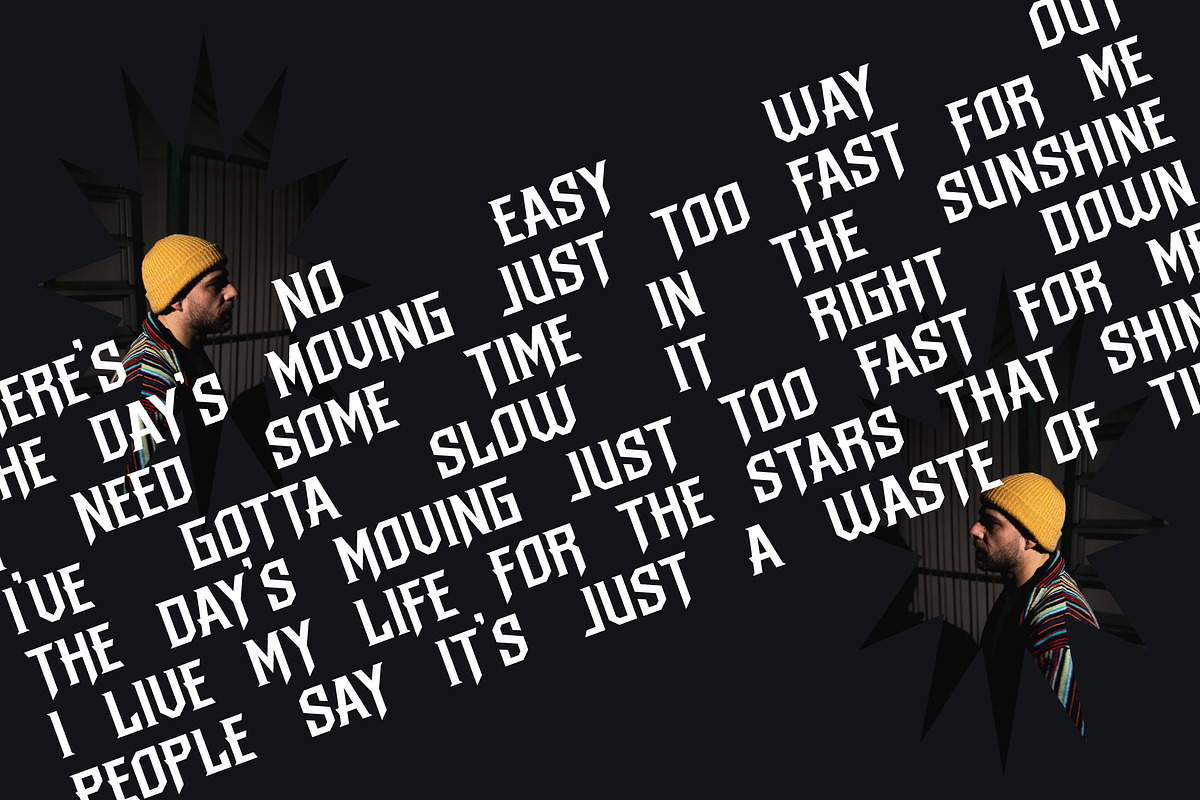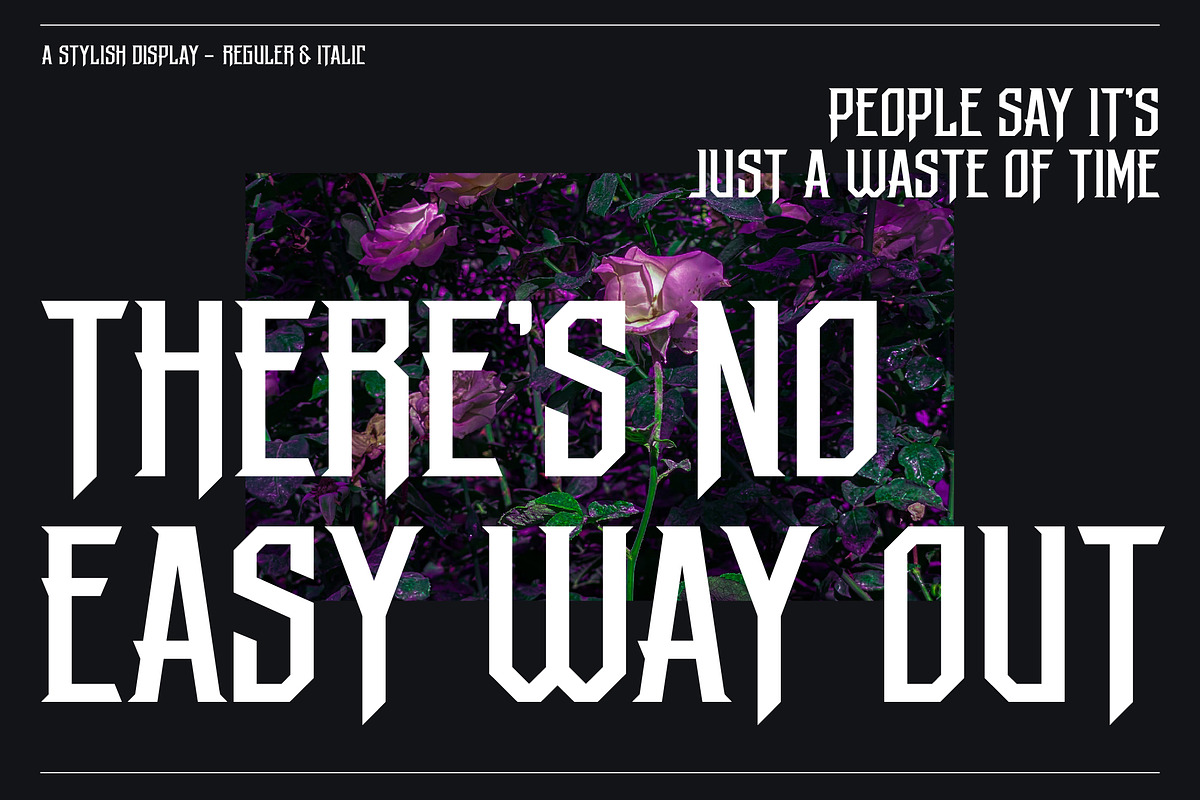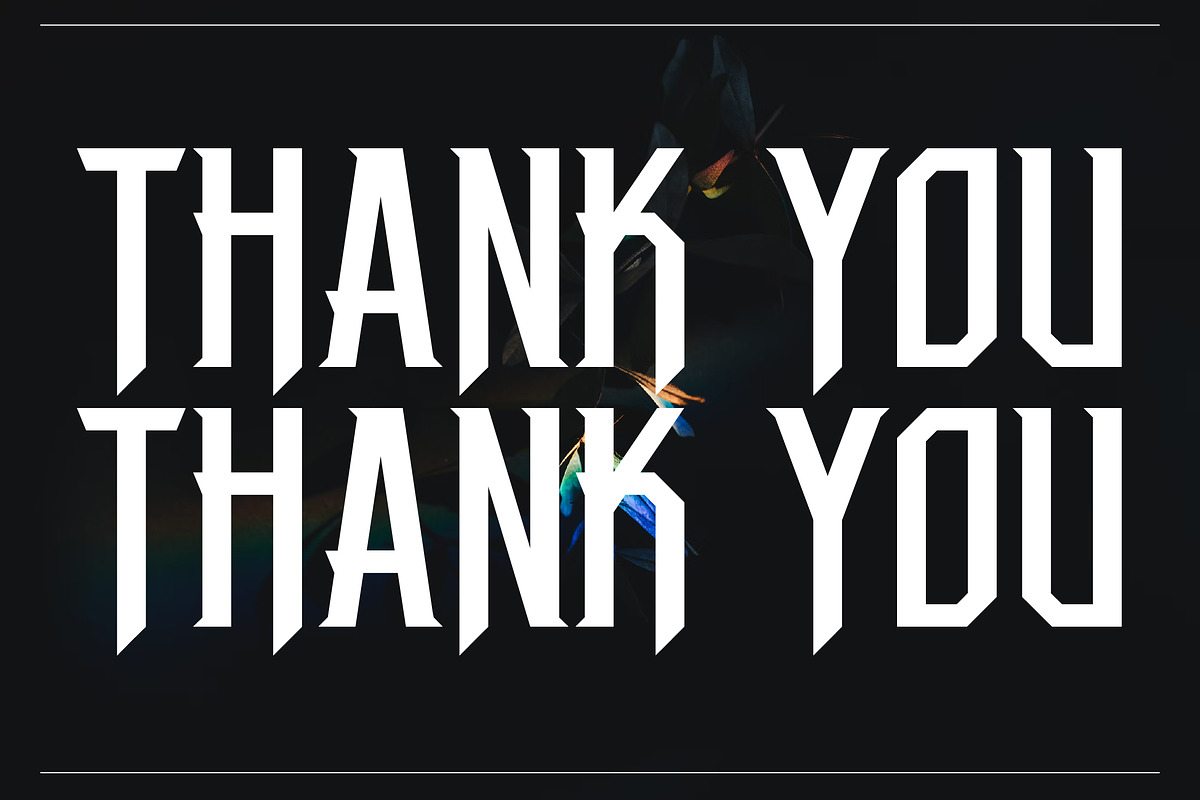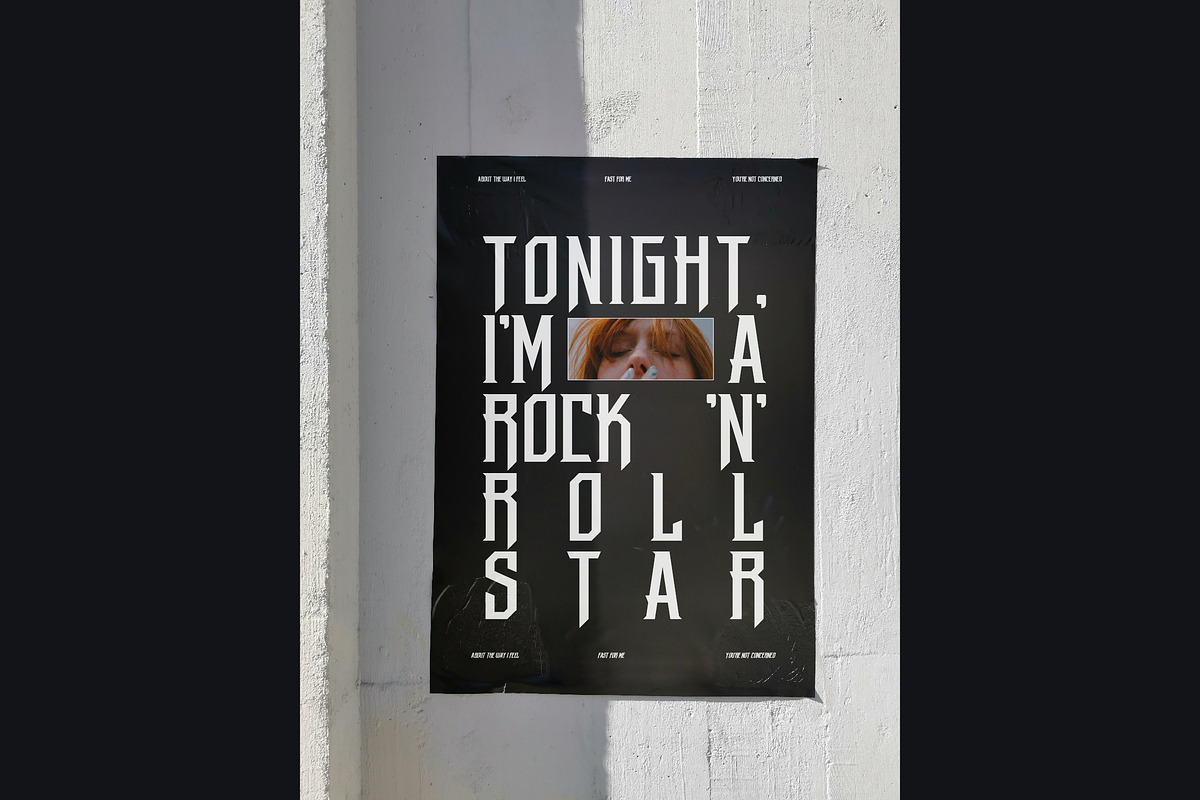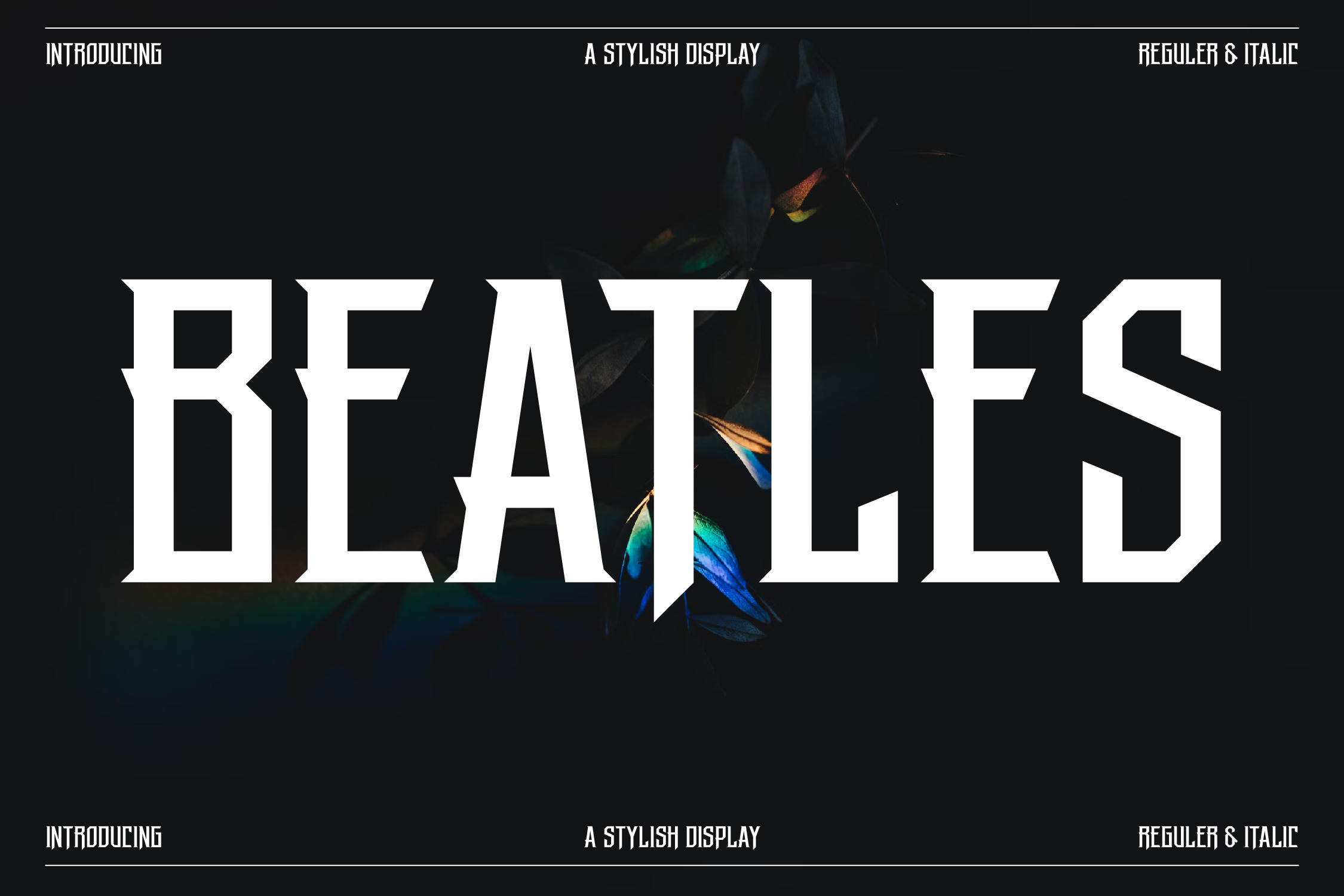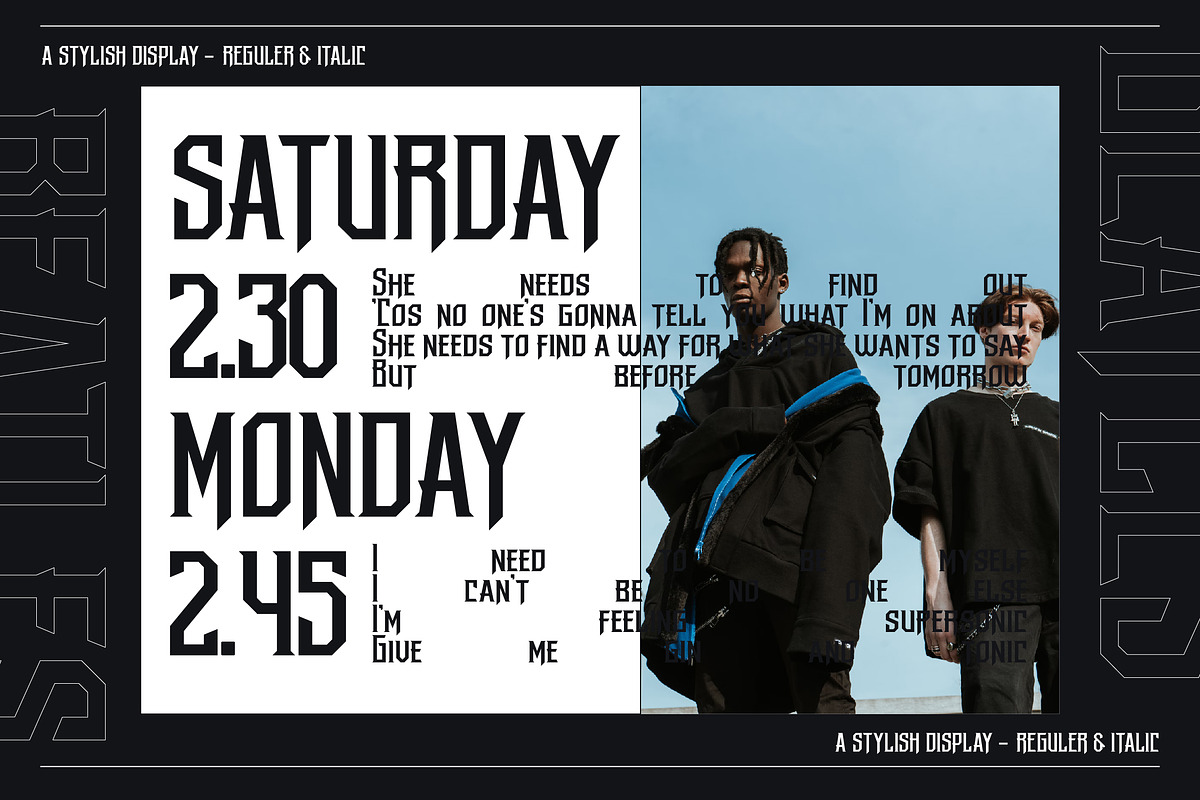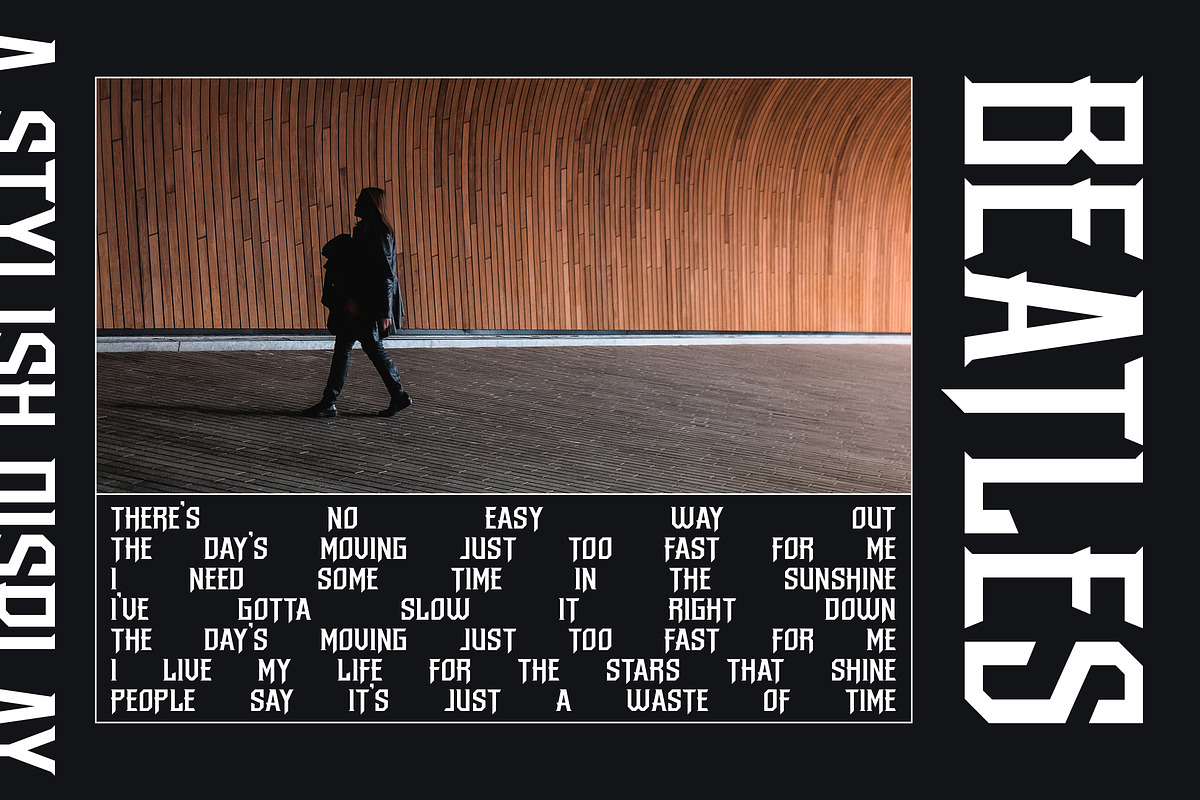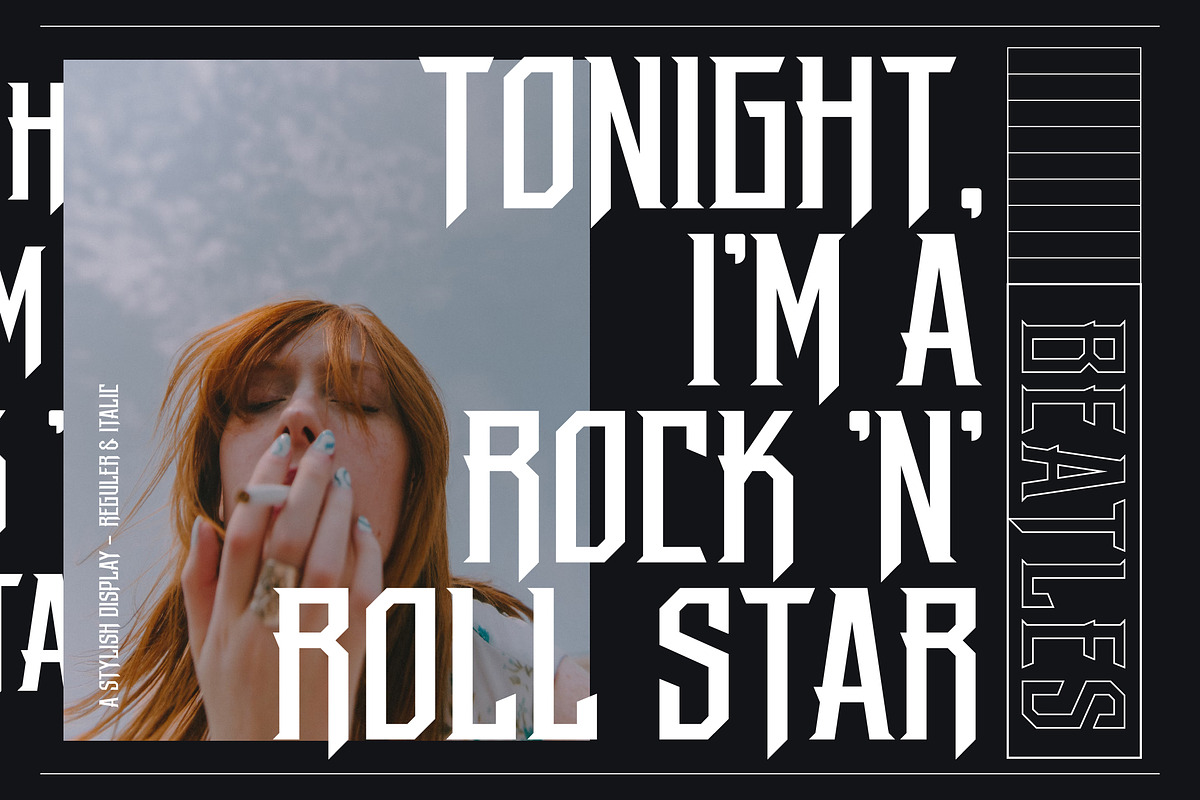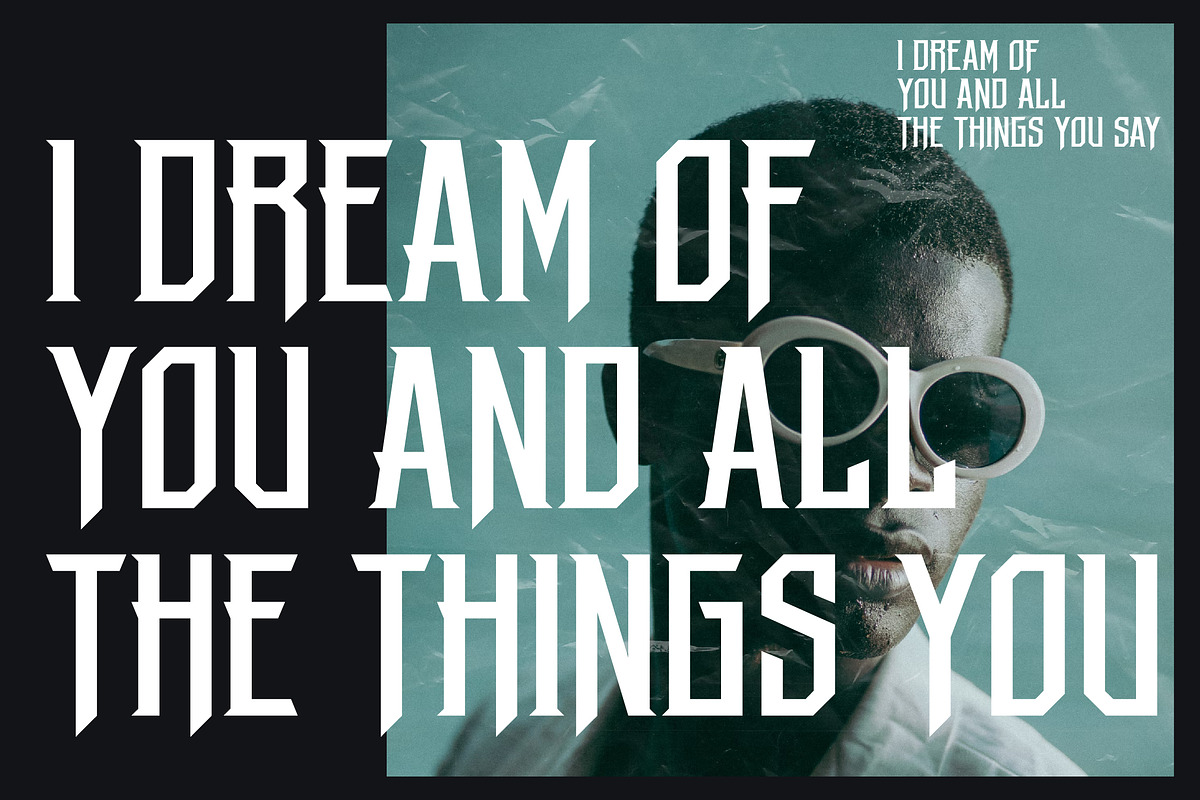
Beatles Stylish Display Font
Proudly present BEATLES Typeface , created by Storytype, A serif modern and classic typeface that has own unique style & modern look. This typeface is perfect for an elegant & luxury logo, book or movie title design, fashion brand, magazine, clothes, lettering, quotes, and so much more.